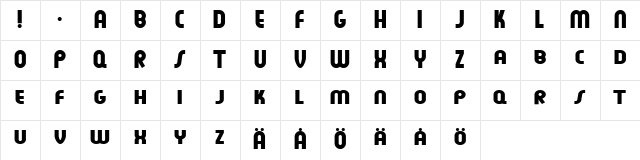
Feuerfeste Normal
Feuerfeste takes a measured approach to typography — its balanced proportions and neutral character make it a reliable workhorse for both digital and print work.